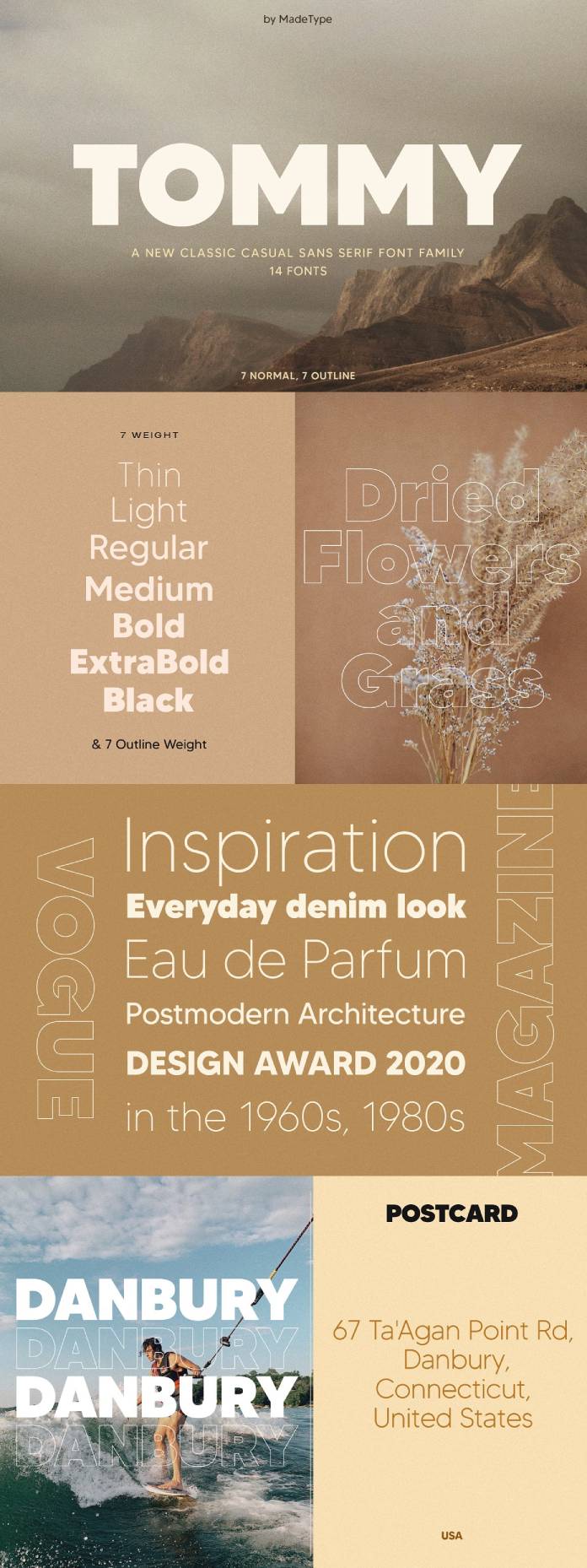
Take a look at Made Tommy, a sans-serif font family designed and published by foundry MadeType.
This is Made Tommy, a timeless and contemporary sans serif font family with 14 beautiful styles. It is perfect for any project from fashion magazines to logos, branding, photography, wedding invitations, blog posts, posters, or advertisements. You can be sure that this font will give your work the ultimate touch of modern elegance. Try it today!
Modern sans serif fonts are always great choices for many projects, ranging from web design to logos. They offer a sleek and clean look, while still being simple and easy to read. Sans serif typefaces have no decorative strokes or flourishes; instead, they consist of basic shapes like lines, circles, squares, and curves. Made Tommy is a good example of this genre of typefaces.